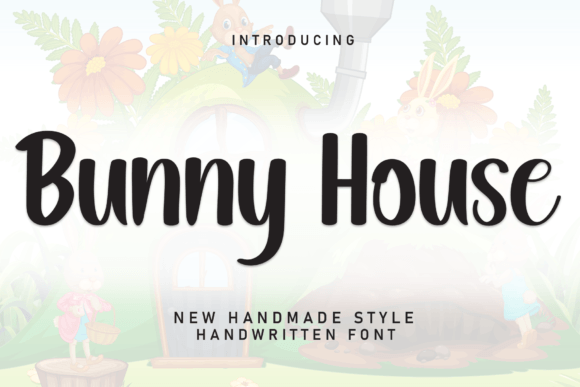
Welcome to the enchanting world of Bunny House Font - a font family that personifies sweetness and friendliness, crafted with exquisite care by Strongkeng Old. This script font, with its endearing handwritten charm, adds a layer of joy, delight, and playfulness to your designs.
As you embark on your creative journey with Bunny House Font, let your imagination soar. Picture yourself crafting wedding invitations that exude an air of timeless romance, cards that burst with warmth and cheer, and logos that radiate personality and charm. The versatility of Bunny House Font knows no bounds.
Feel the magic come alive as you let the font dance across your digital canvas. Its smooth lines, playful curves, and expressive characters bring a touch of whimsy and delight to every word you write. Your designs will captivate hearts, evoke smiles, and leave a lasting impression.
With Bunny House Font, create designs that speak to the soul. Let your words take on a new life, brimming with warmth, personality, and the joy of handwritten artistry. Each letterform, meticulously crafted, carries a story of its own, adding a depth of character to your creations.
Experience the joy of Bunny House Font today and unlock a world of creative possibilities. Its versatility, charm, and ability to evoke emotion make it the perfect choice for those seeking a font that resonates with hearts. Embrace the beauty of handwritten artistry and let your creations bloom with joy and personality.